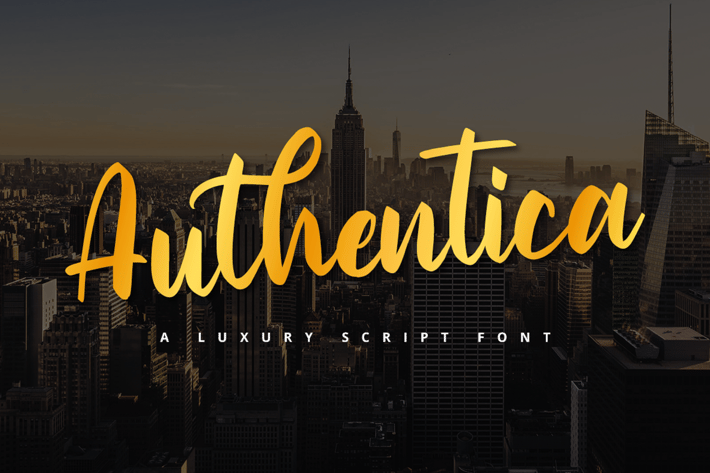
Golden Script Font
How about a mix of luxury, style, and authenticity? A font fit for someone with style and grace Sounds good? Then check this one out, it’s a real keeper.
Bring a spirit of luxury and good taste to your designs, apps, websites, and much more. This refined Authentica Script font will make sure your message is clear to anyone.
This stylish font supports multilingual characters, as well as numerals and punctuation marks.
Multilingual & Ligature Support
Full sets of Punctuation and Numerals
Bring a spirit of luxury and good taste to your designs, apps, websites, and much more. This refined Authentica Script font will make sure your message is clear to anyone.
This stylish font supports multilingual characters, as well as numerals and punctuation marks.
Multilingual & Ligature Support
Full sets of Punctuation and Numerals